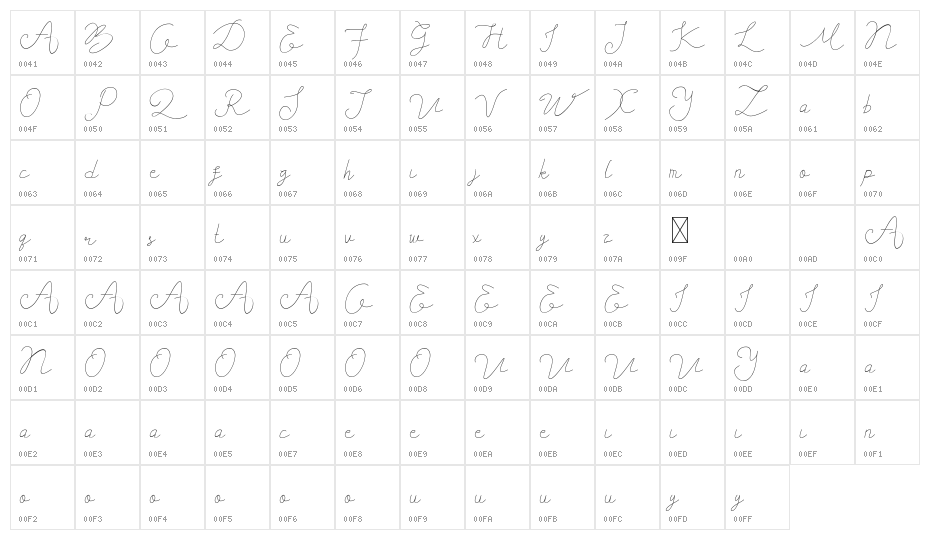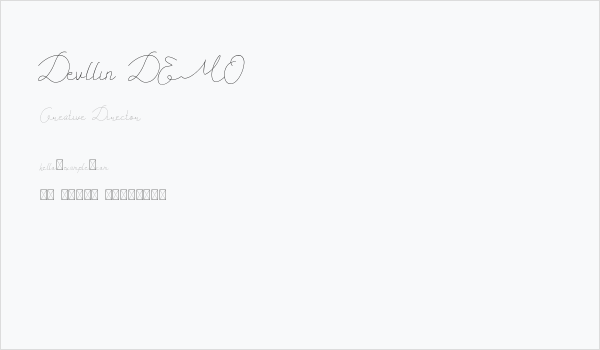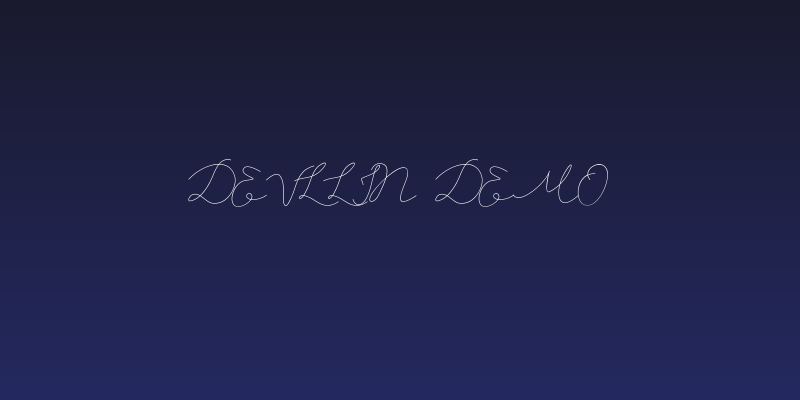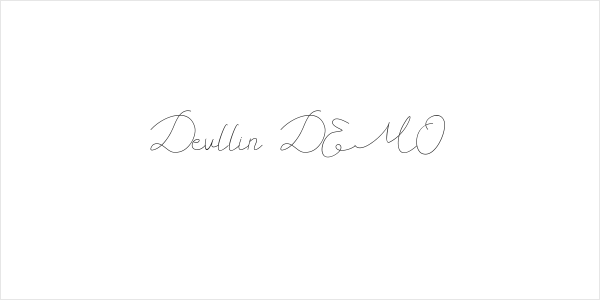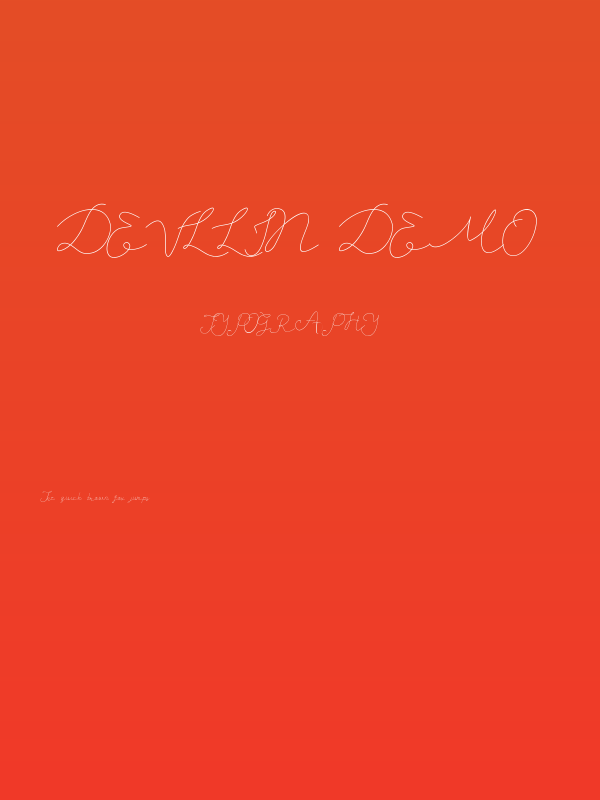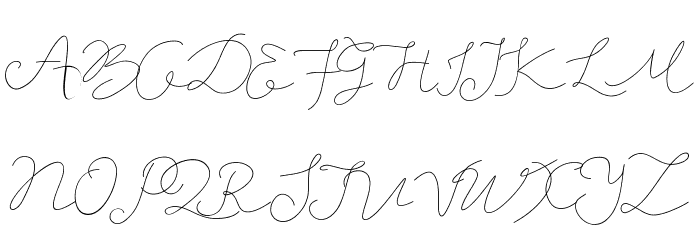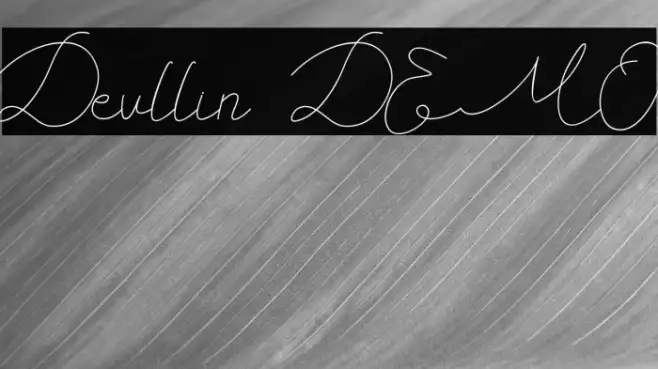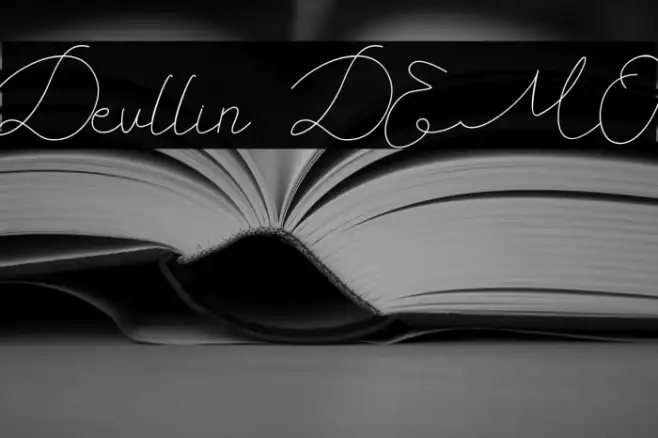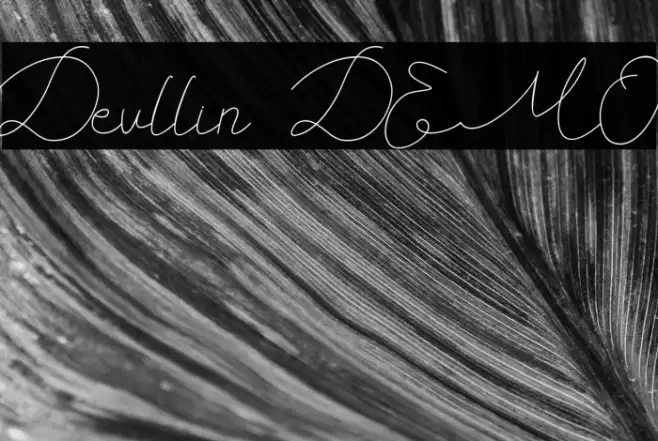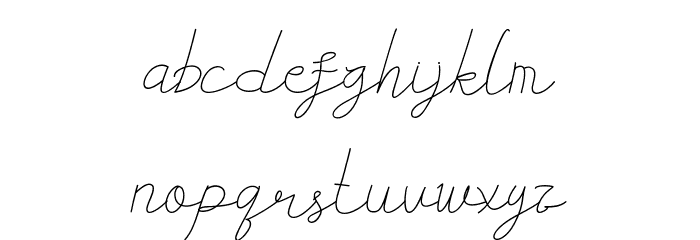
Devllin DEMO Font
Devllin DEMO Description
This font features an elegant and flowing script style, characterized by its delicate and continuous strokes. The uppercase letters exhibit a graceful looped design, while the lowercase letters maintain a smooth and consistent flow. The overall appearance is sophisticated, with a touch of whimsy, making it suitable for formal invitations, branding, and artistic projects. The characters are well-balanced, with a harmonious blend of curves and lines, providing a sense of movement and fluidity. The font's unique style is both classic and contemporary, offering versatility in various design contexts.
| Overall Style | Elegant, Classic |
| Use Case | Headlines, Invitations, Artistic projects |
| Proposed Projects | Ideal for wedding invitations, elegant branding, artistic projects, and decorative purposes. |